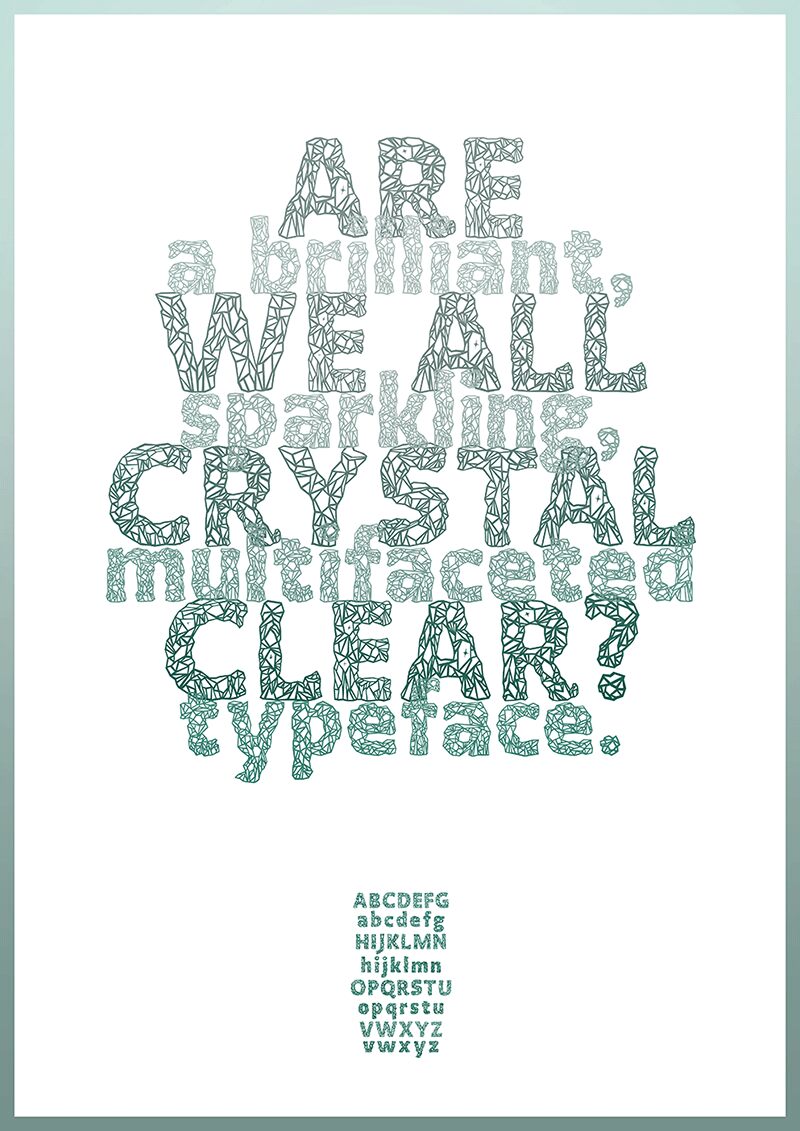
Crystalline Outline by Arthur Reinders Folmer is a free decorative outlined font drawn as a web of sharp, fractured facets. Each letter has an uneven silhouette and dense internal linework, giving the alphabet the look of cracked glass or rough-cut crystal.
Its strongest role is in posters, where the lettering can become part of the central illustration rather than a neutral caption. The same crystalline texture suits fantasy game graphics, experimental album covers, and event branding, and it can turn a magazine feature opener into a jagged graphic motif.
Crystalline is a typeface based on crystal shapes. Further type and crystal experiments are planned, with a focus on programming 2D and 3D shapes in the near future.
It includes both an outline version and a negative version.